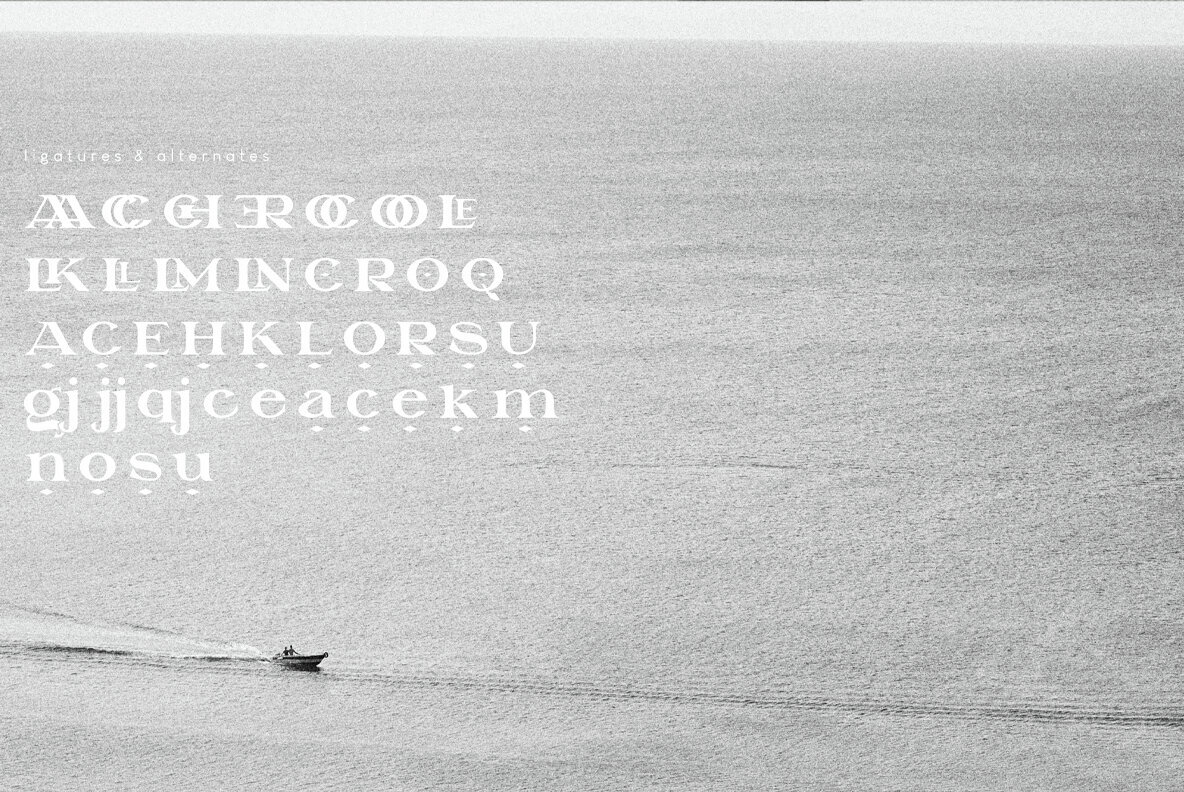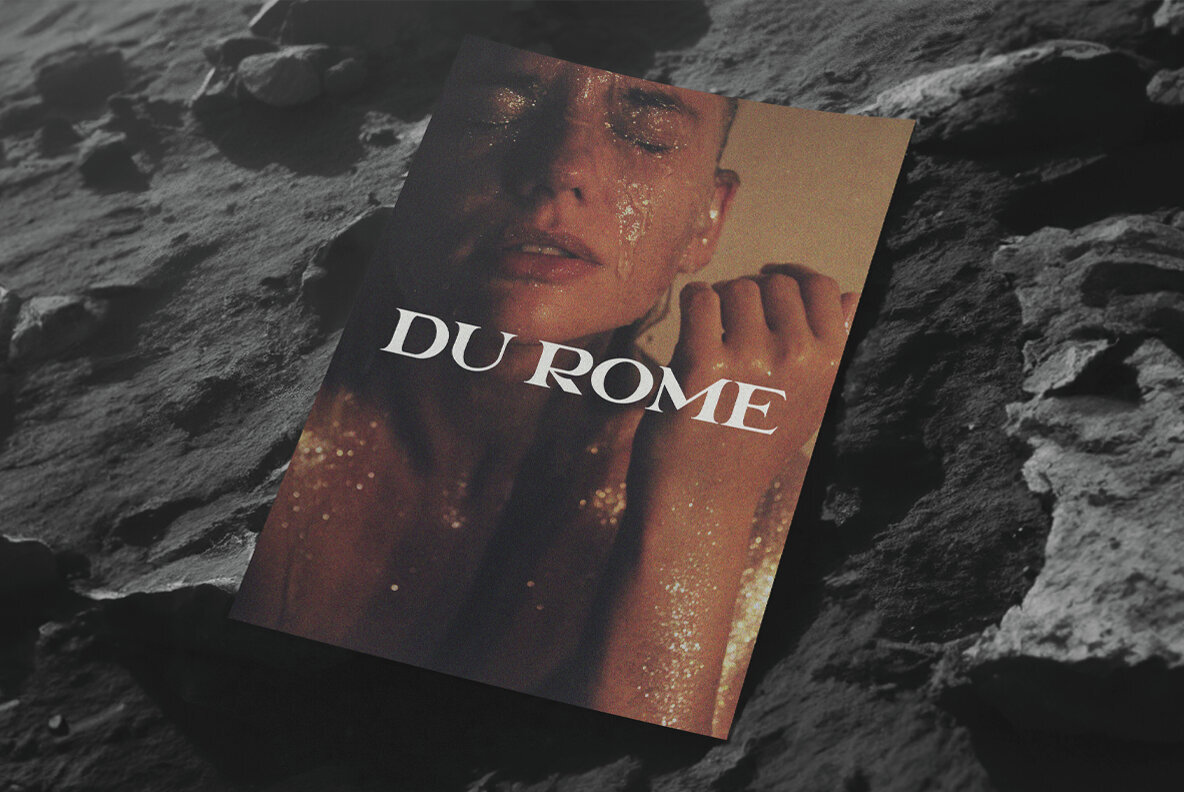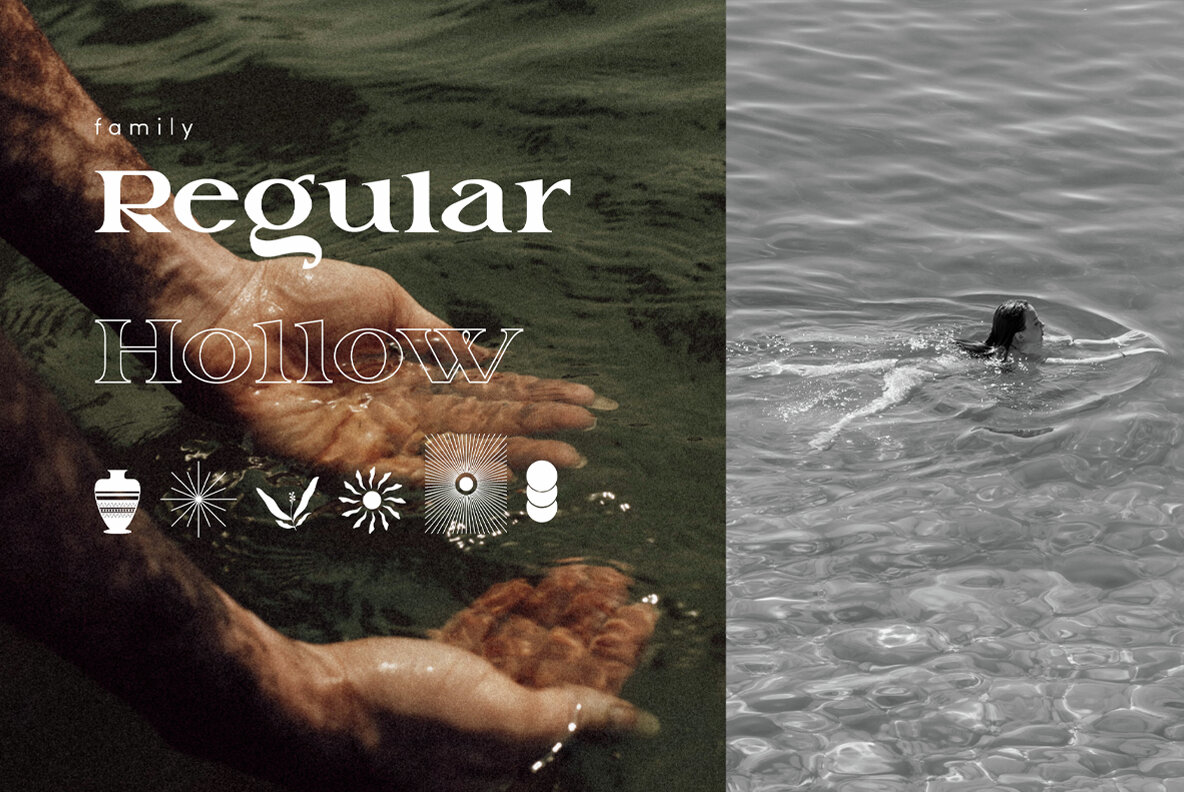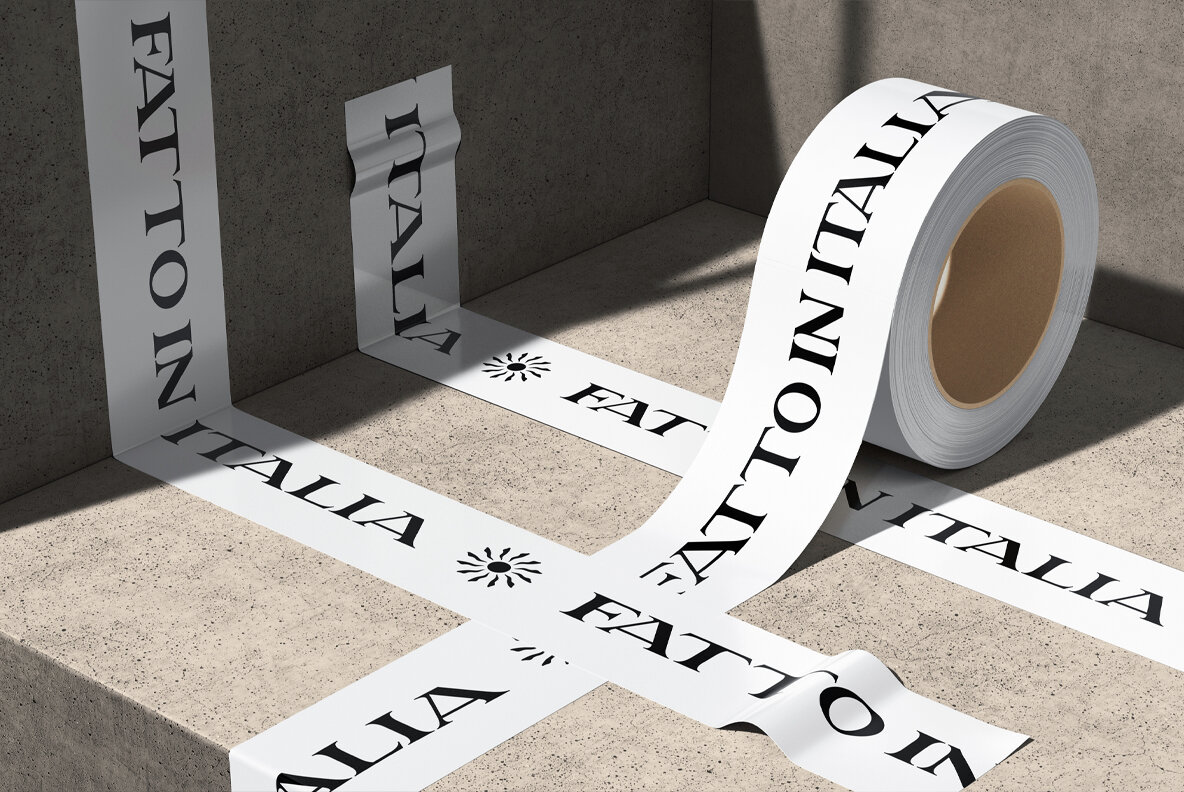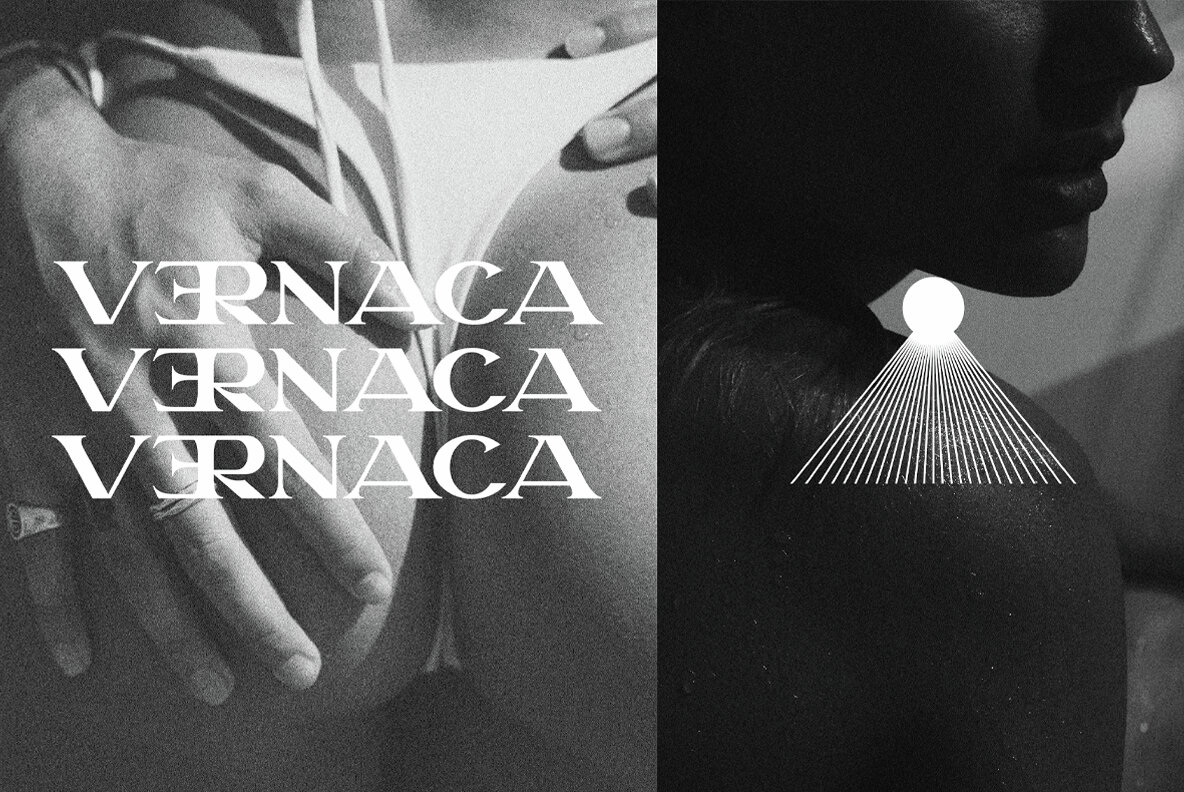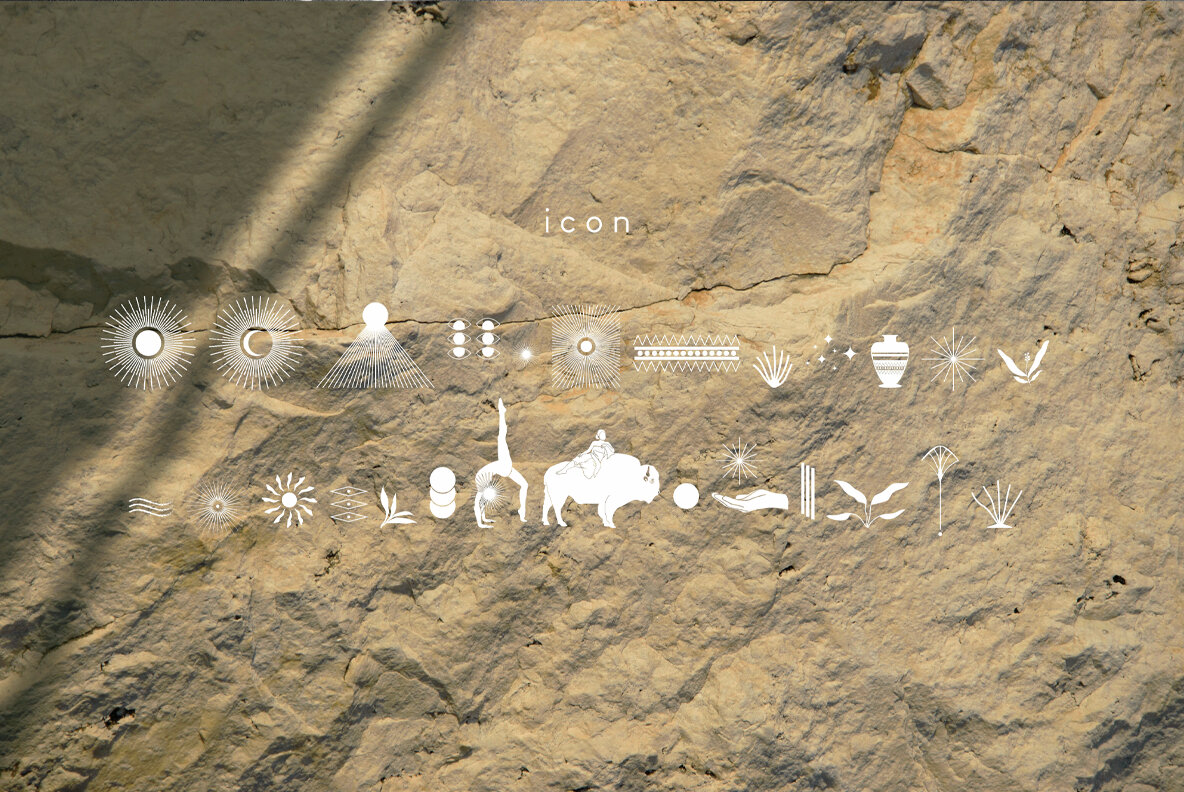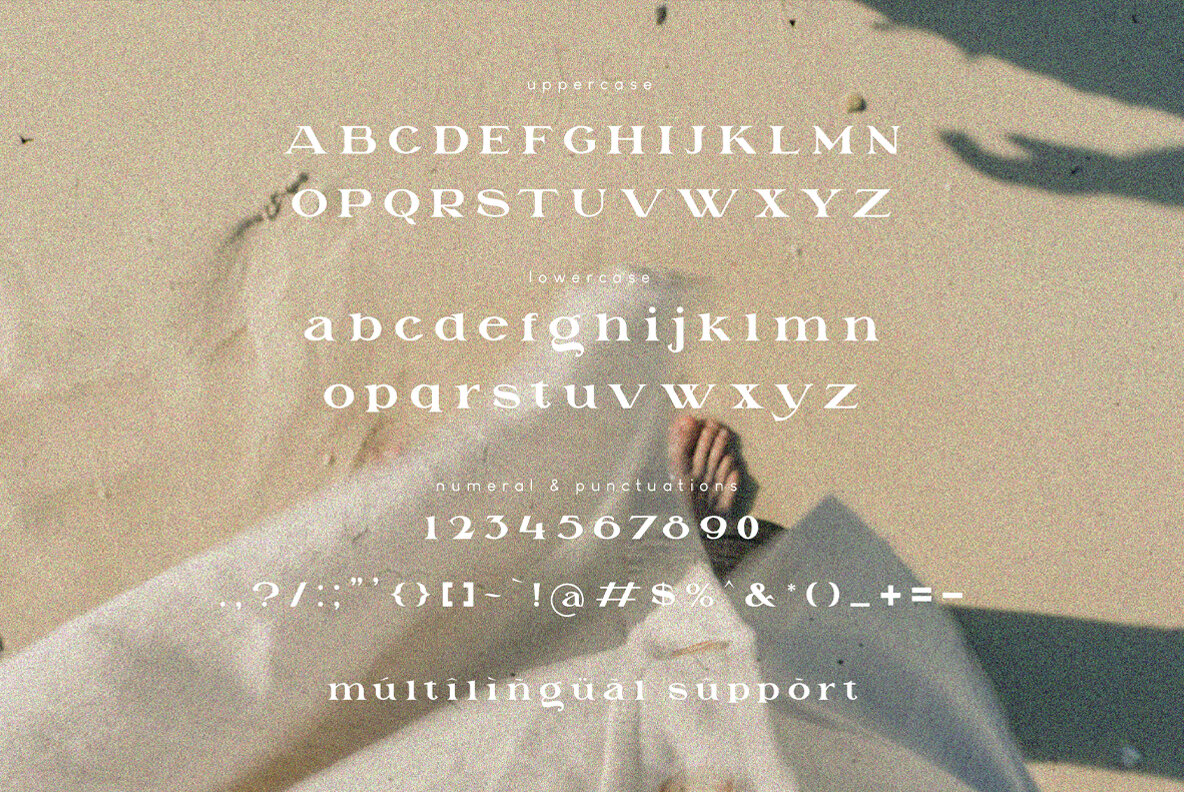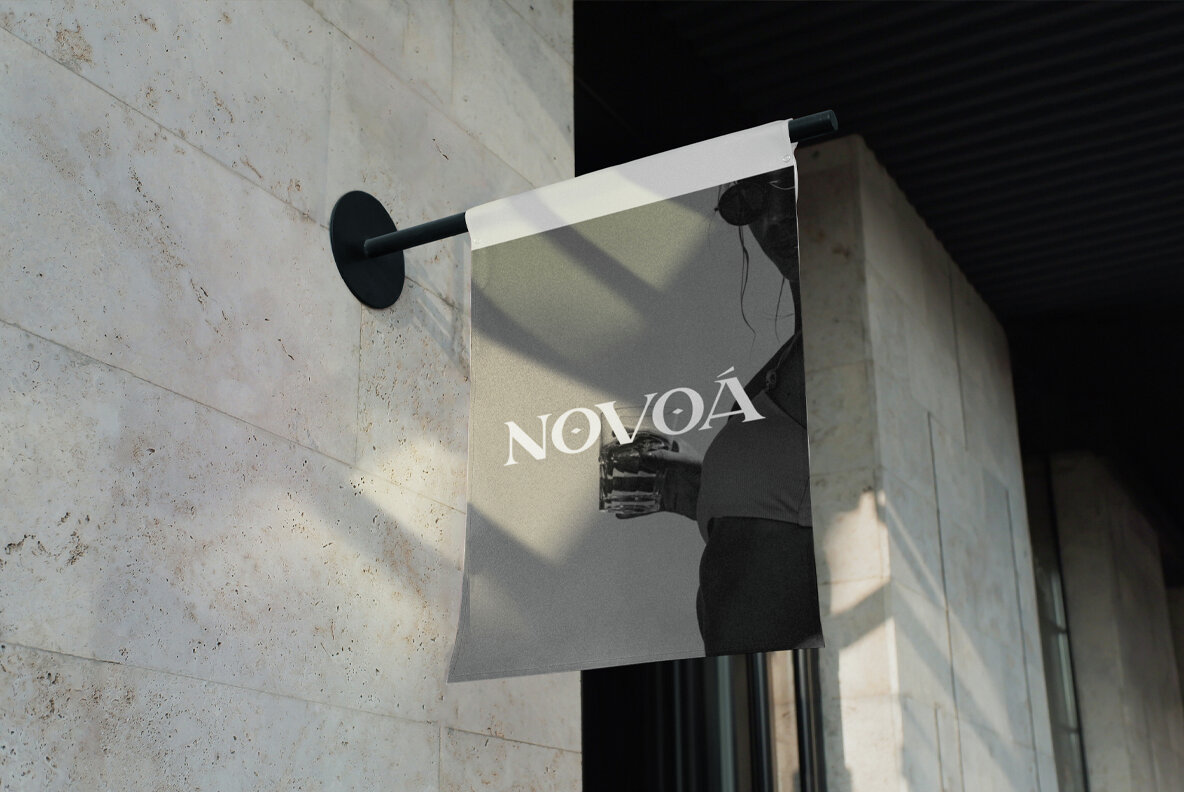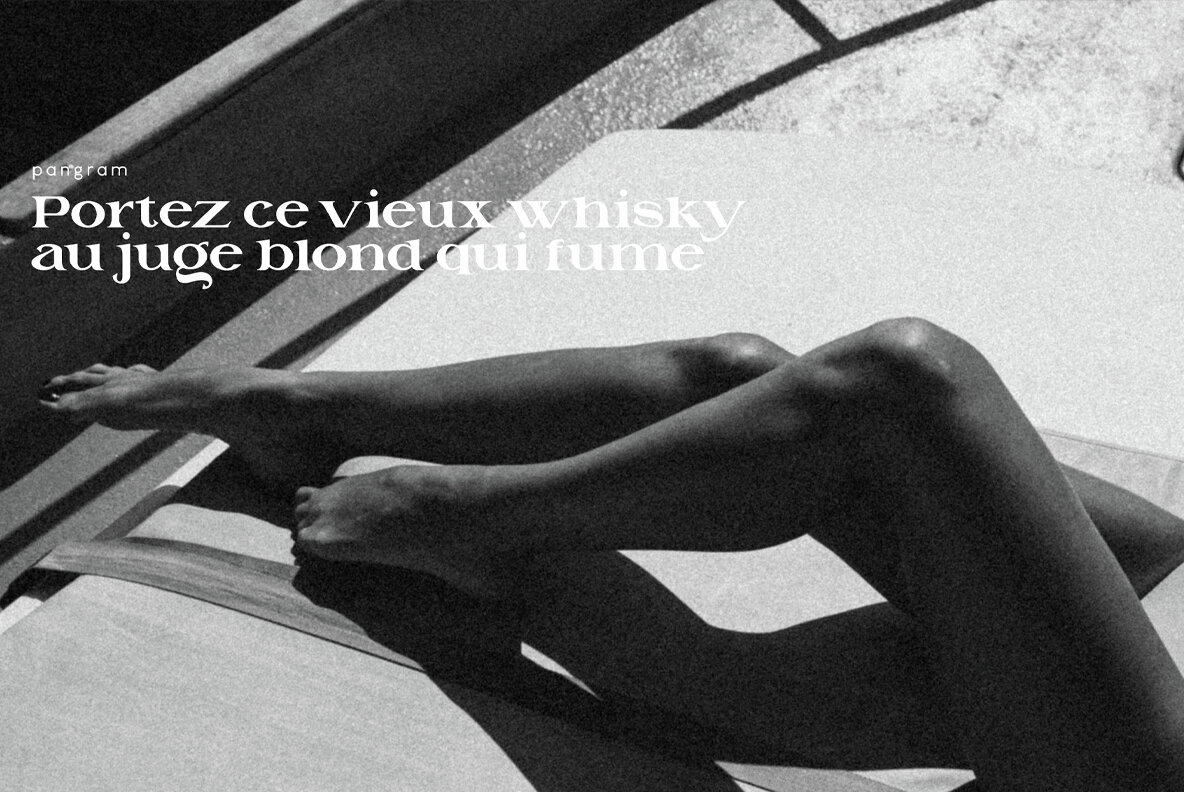
LA QATRIE Font
LA QATRIE
LA QATRIE Hollow
LA QATRIE Icon
Experience refined design with La Qatrie, a display font that boasts an elegant look and a touch of luxury, setting a new standard for sophistication in typography. Perfect for those needing a touch of elegance, classy, stylish, beautiful bold type, and modernity for their design. Complete with